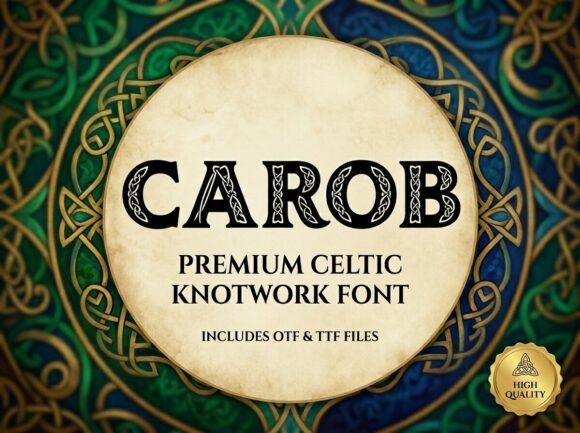
Unleashing the Ancient Mystique of Carob Font
Have you ever been in the midst of a design project, and suddenly, you’re struck by a creative block? You’re not alone! I recall a particularly challenging project where I was tasked with creating a logo for a fantasy game. The client wanted something that would transport players to a mystical realm, but I was struggling to find the right font. That’s when I stumbled upon Carob, a monumental display typeface that would change the game (pun intended)! ✨
What is Carob Font?
Carob is a stunning display font that embodies the essence of ancient mystery. Its heavy, blocky letterforms are uniquely characterized by intricate, hand-drawn Celtic knotwork patterns woven into every stroke. This distinctive feature bridges the gap between medieval manuscripts and modern fantasy branding, making it a premier choice for designs that require a touch of mystique and mythology.
My Honest Review of Carob Font
- ✅ Unique and eye-catching design: Carob’s intricate Celtic knotwork patterns make it stand out from other fonts.
- ✅ High-impact visual presence: The font’s massive structural weight and historic personality make it perfect for designs that require a bold statement.
- ✅ Versatile: Carob can be used for a wide range of projects, from independent artisan spirits labels to epic fantasy game interfaces.
- ✅ Easy to read: Despite its ornate design, Carob remains surprisingly legible, even at smaller sizes.
While Carob is an exceptional font, it’s not without its quirks. Here are a few things to keep in mind:
- ⚠️ Limited use cases: Due to its bold and ornate design, Carob may not be suitable for body text or smaller designs.
- ⚠️ May require additional design elements: To truly make Carob shine, you may need to pair it with complementary design elements, such as illustrations or textures.
- 🤔 Can be overwhelming: If not used thoughtfully, Carob’s intricate design can be overwhelming. Be mindful of the overall aesthetic balance of your design.
The Backstory of Carob Font
Legend has it that Carob was inspired by ancient Celtic manuscripts, where artisans would spend hours crafting intricate knotwork patterns. The font’s designer, a typography enthusiast, became fascinated by these patterns and sought to bring them to life in a modern font. After months of research and design work, Carob was born – a testament to the power of ancient craftsmanship and modern design.
Q: What is the best way to use Carob in my design?
A: Carob is best used as a display font, perfect for headlines, titles, and other prominent design elements.
Q: Can I use Carob for body text?
A: While Carob is legible, it’s not ideal for body text due to its bold and ornate design. Consider pairing it with a complementary font for body text.
Q: Is Carob suitable for digital use?
A: Absolutely! Carob can be used for a wide range of digital projects, from social media headers to website titles.